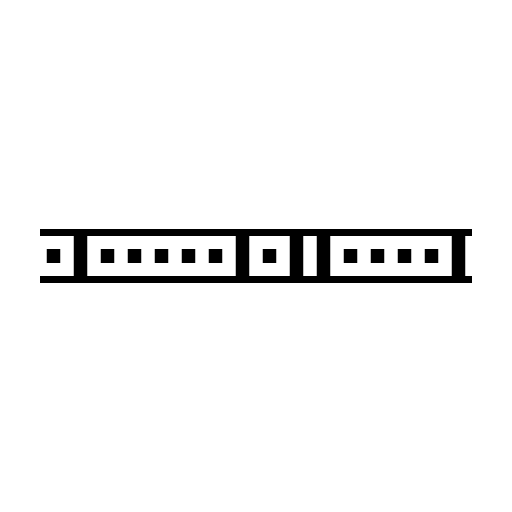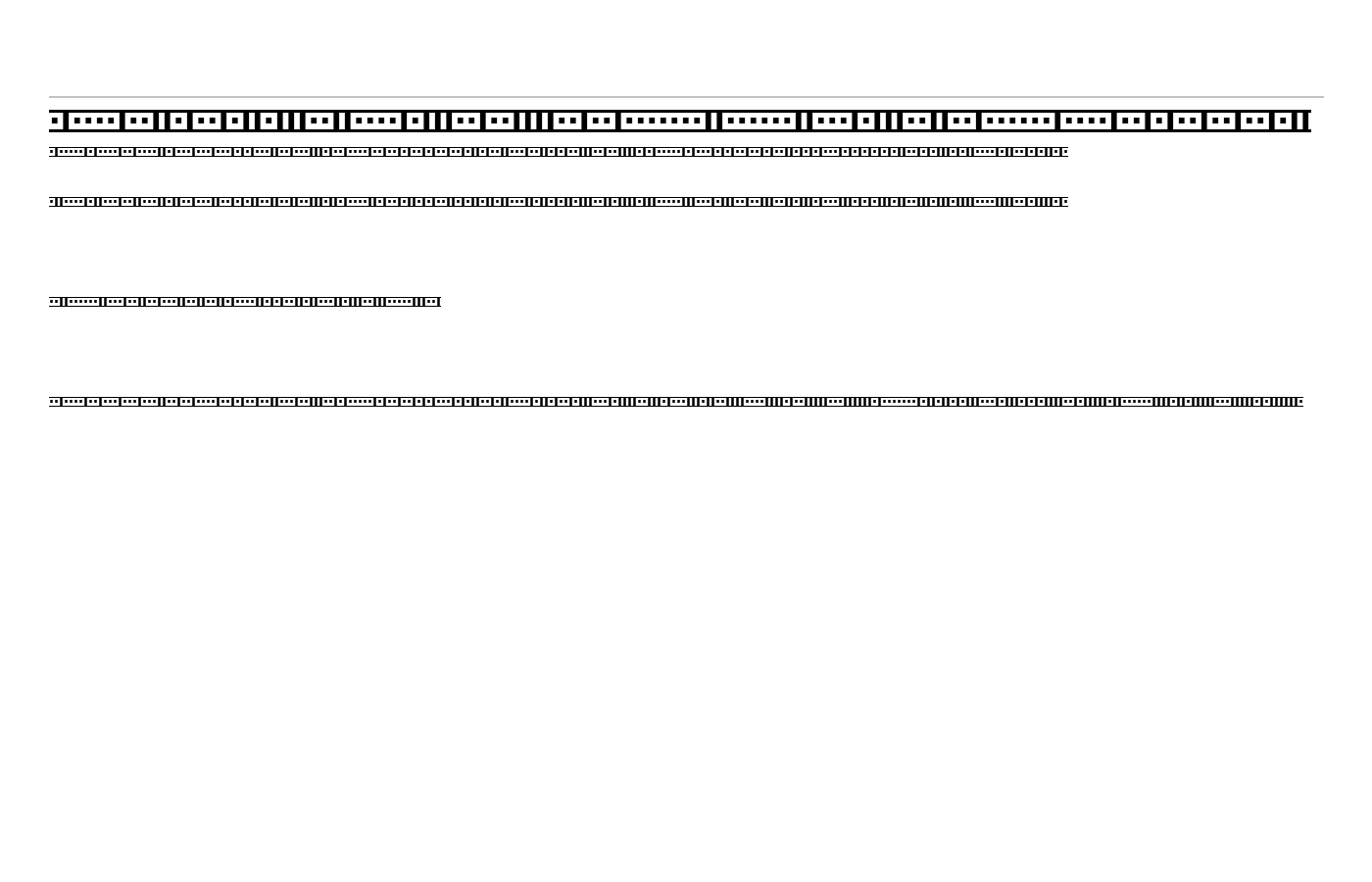
Binary 01s BRK is a unique, monospaced display font that draws inspiration from digital and pixelated aesthetics, resembling binary code blocks. Its rigid, geometric forms and uniform stroke weight create a futuristic, tech-centric vibe, making it ideal for designs related to technology, coding, gaming, or science fiction themes. This eye-catching font works best in headlines, logos, or digital interfaces where a bold, modern, and tech-savvy impression is desired.
Binary 01s BRK Font